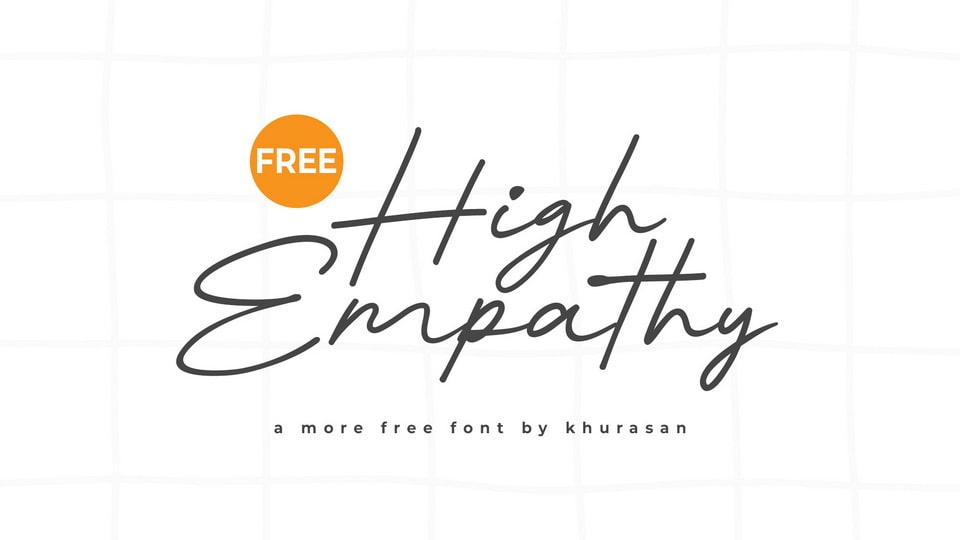
Download High Empathy font, a delicate and modern handwritten script that radiates sincerity and elegance. Its tall letterforms and graceful curves mirror the fluidity of natural handwriting, while retaining a clean and legible structure.